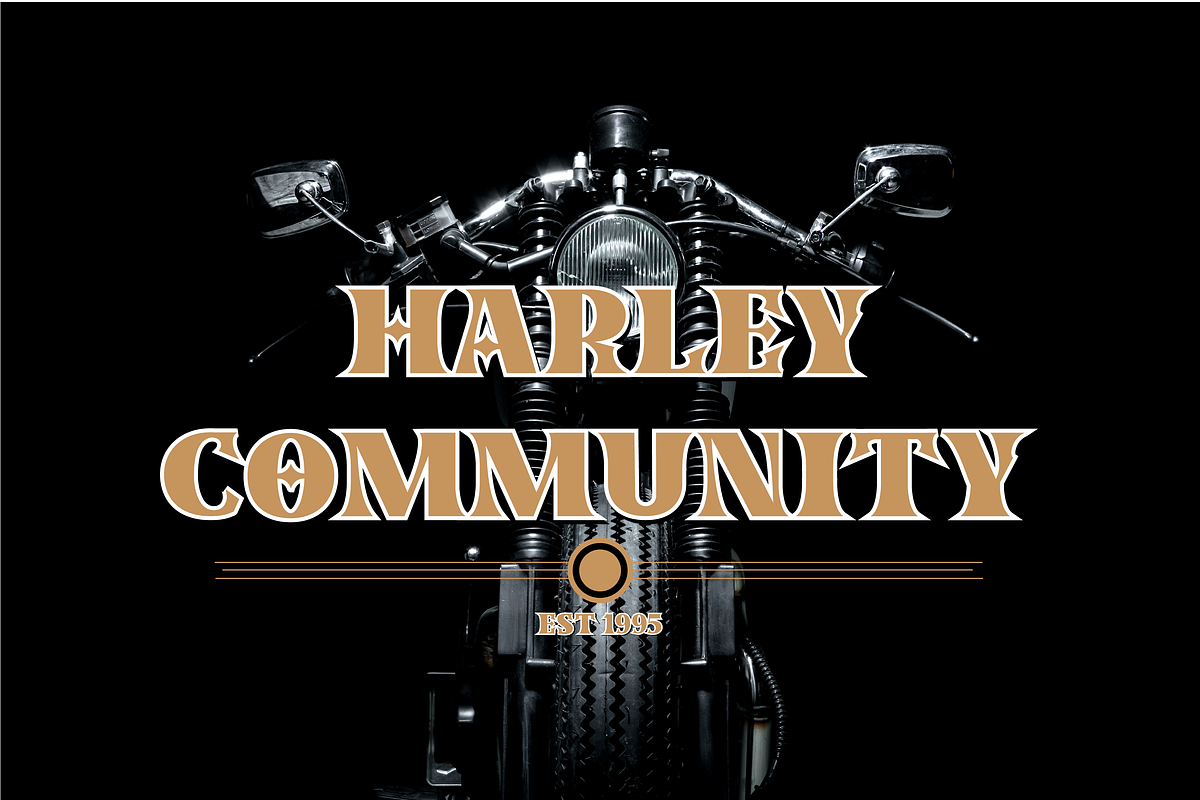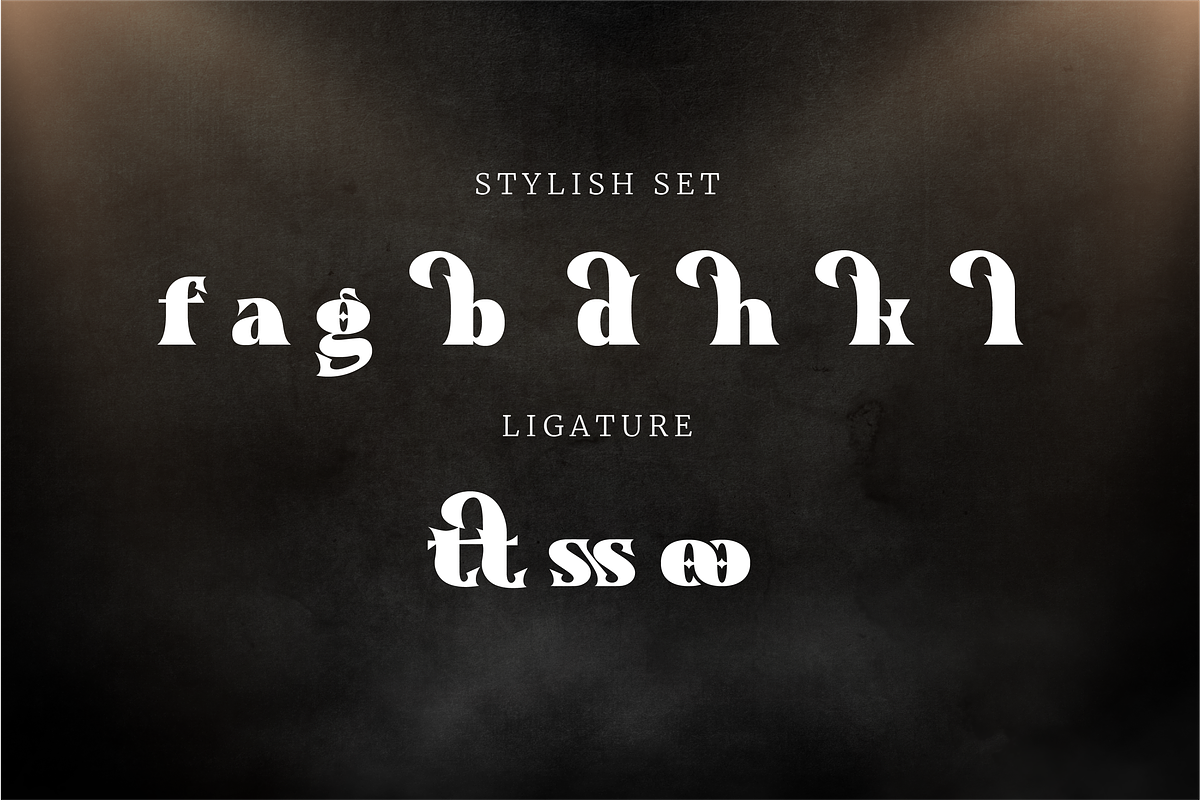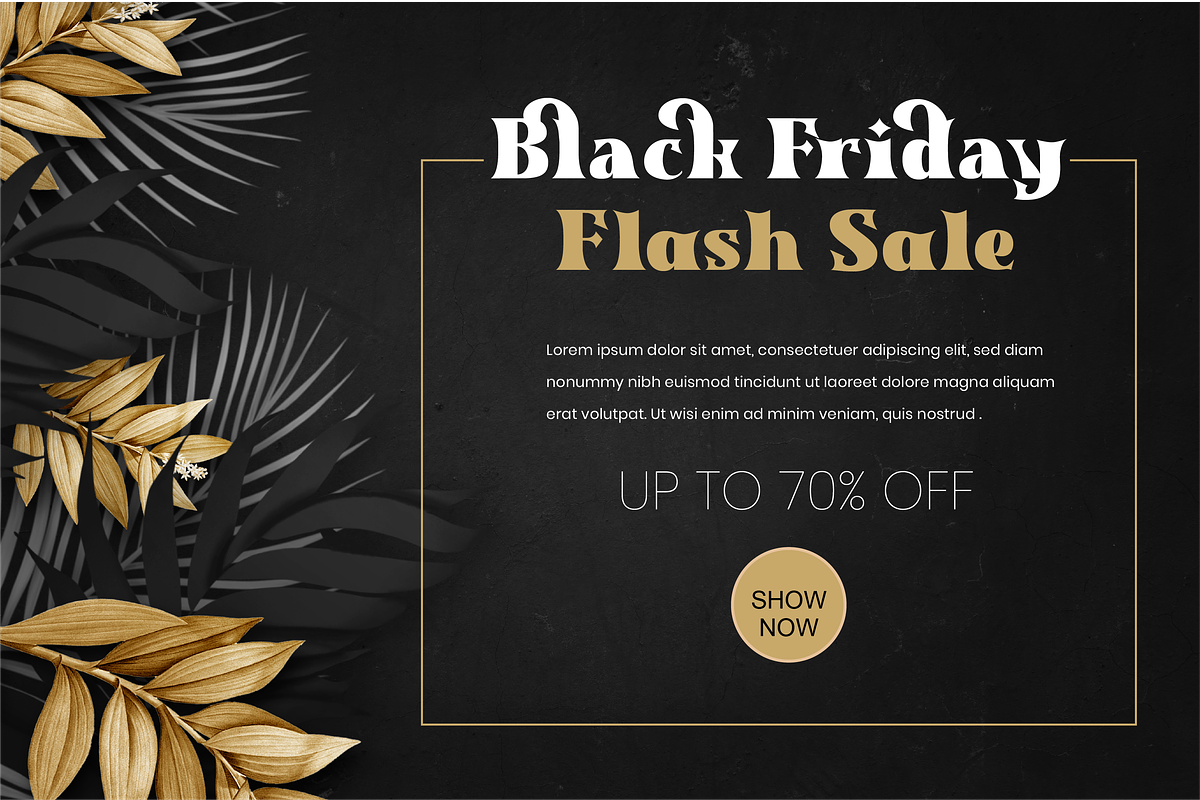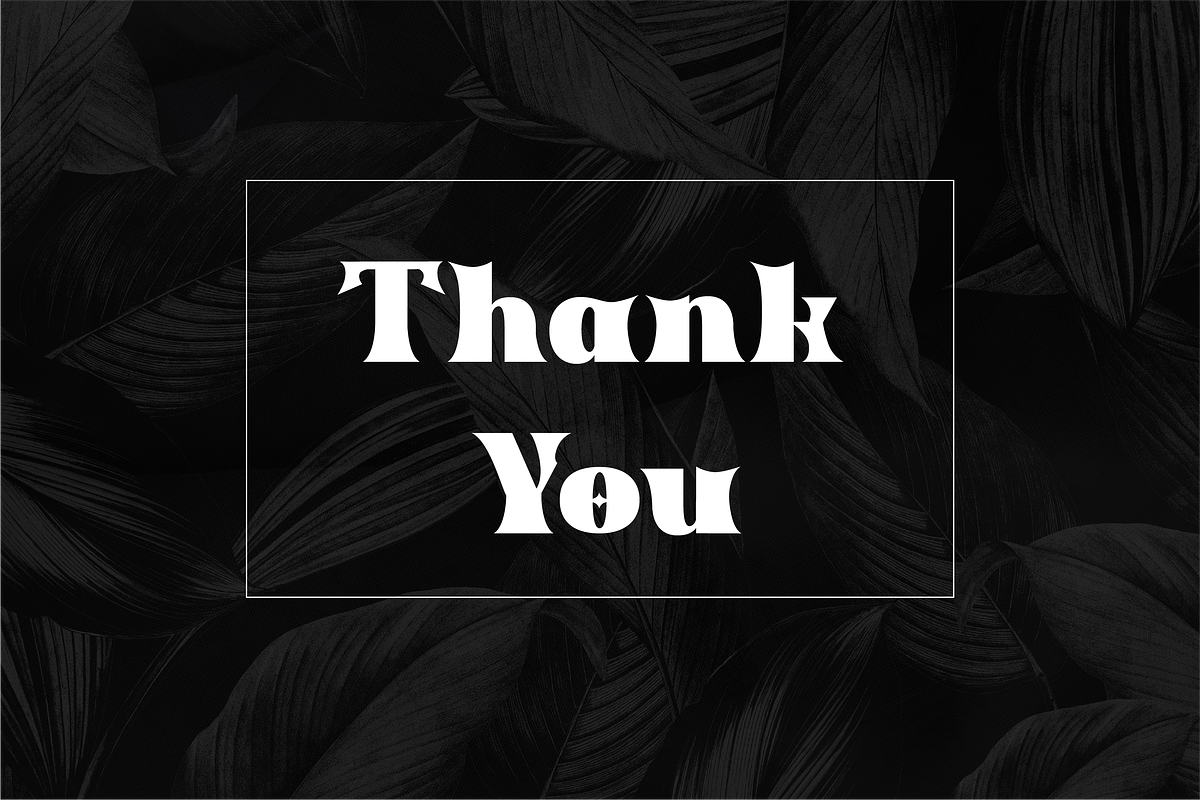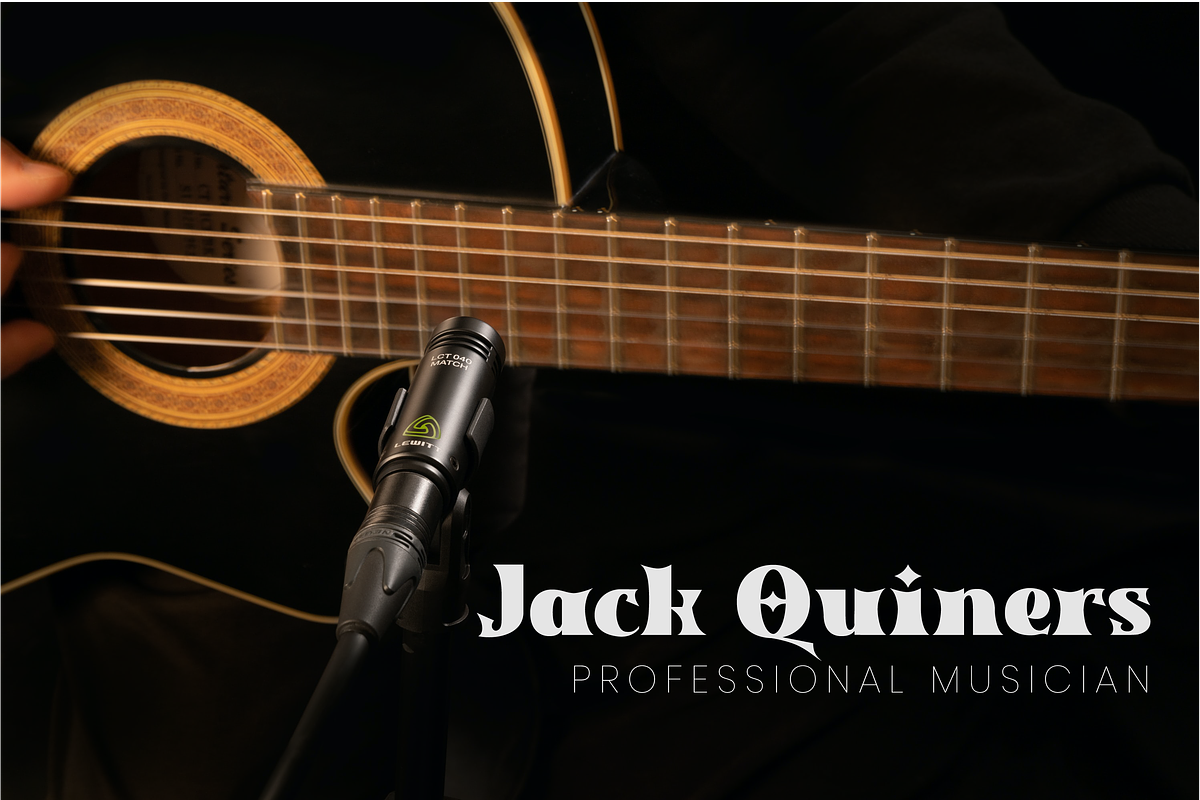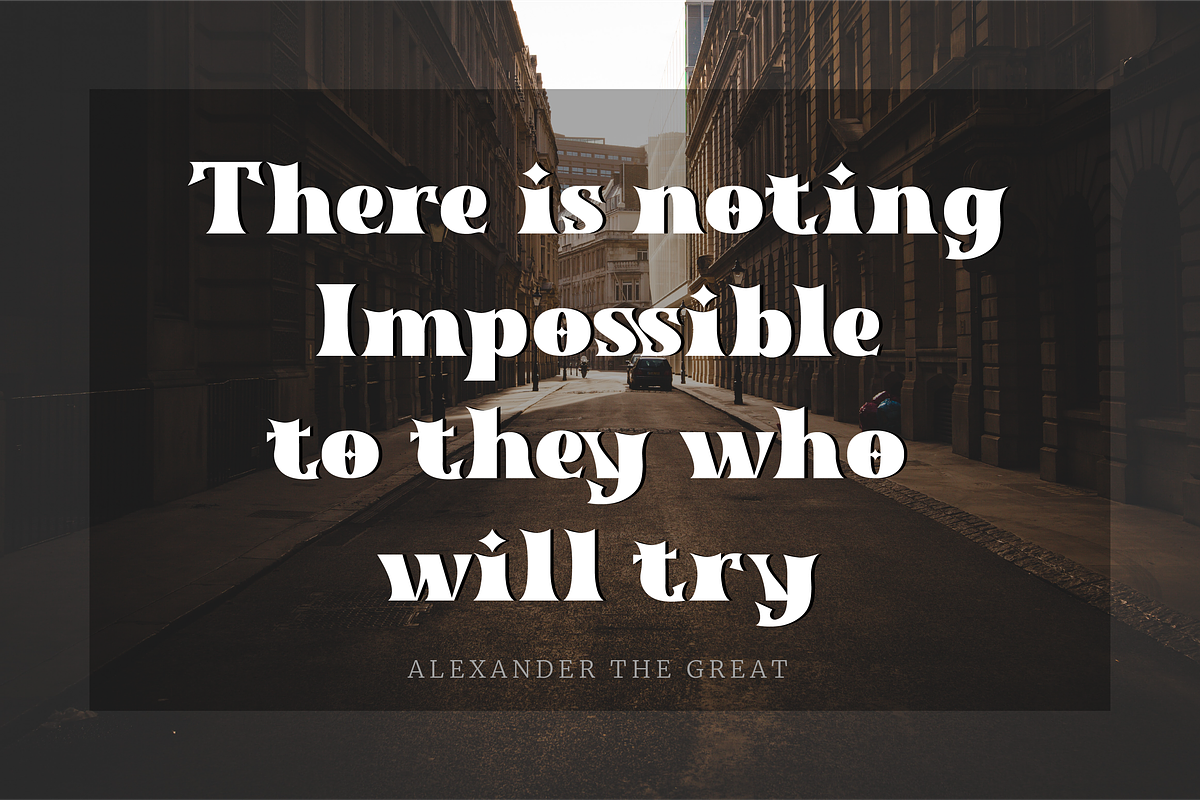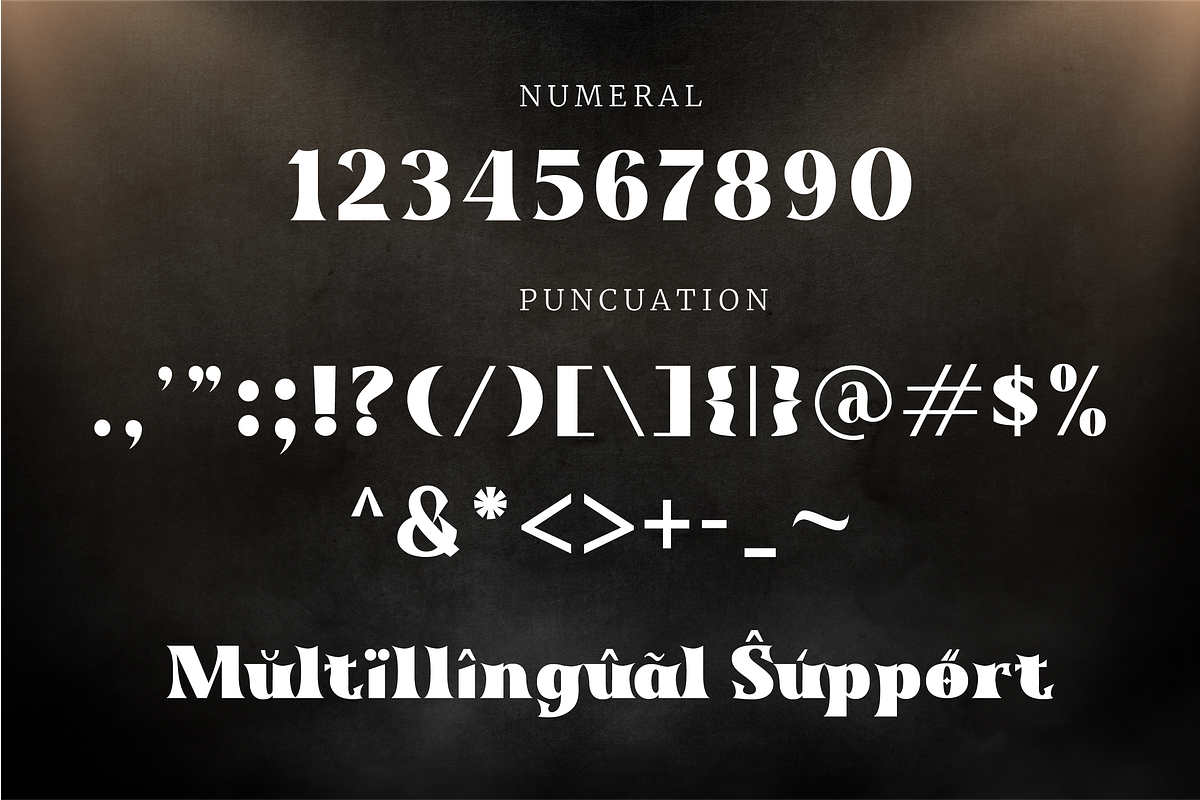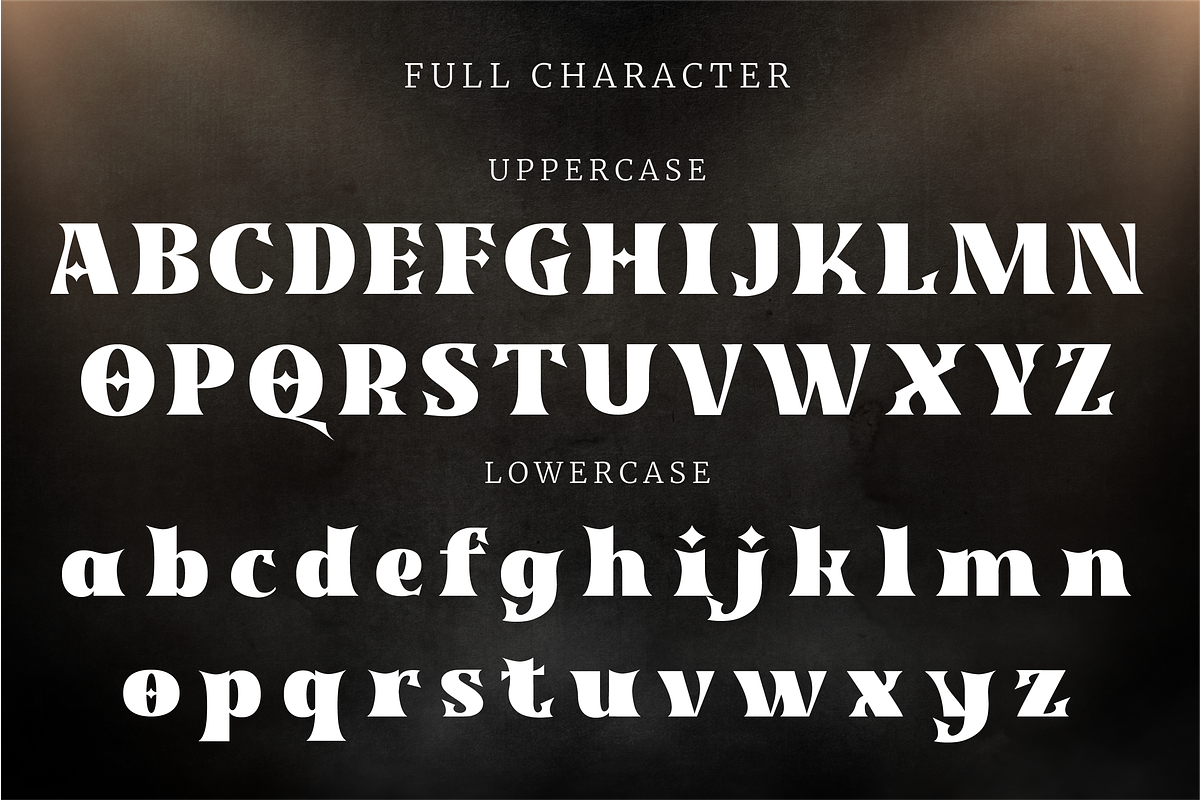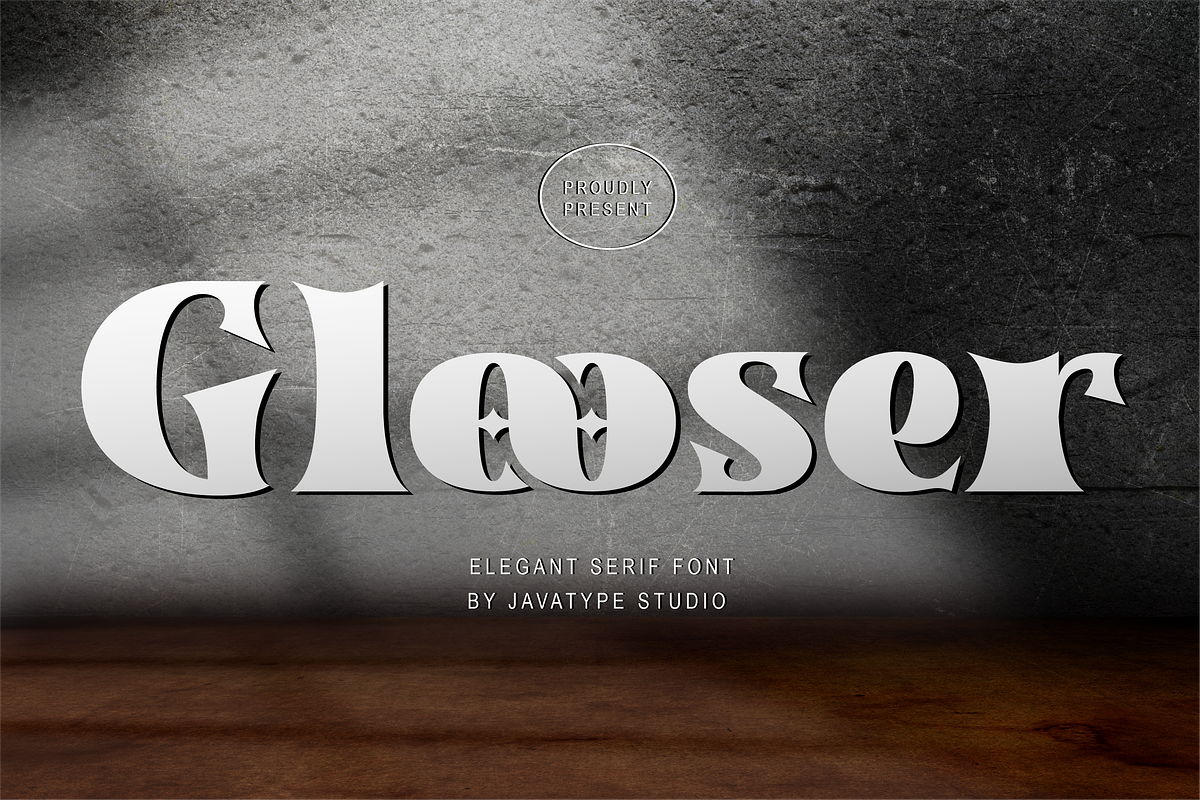
Glooser a elegant serif font
Glooser a Elegant Serif Font Inspired from modern style combine with bold typography style. Come with open type feature with a lot of alternates and end swash, its help you to make great lettering.
Glooser best uses for Logotype, heading,cover, poster, logos, quotes, product packaging, header, merchandise, social media & greeting cards and many more. This font is also support multi language.
- Ligature and Stylish Set
- Fonts include multilingual support